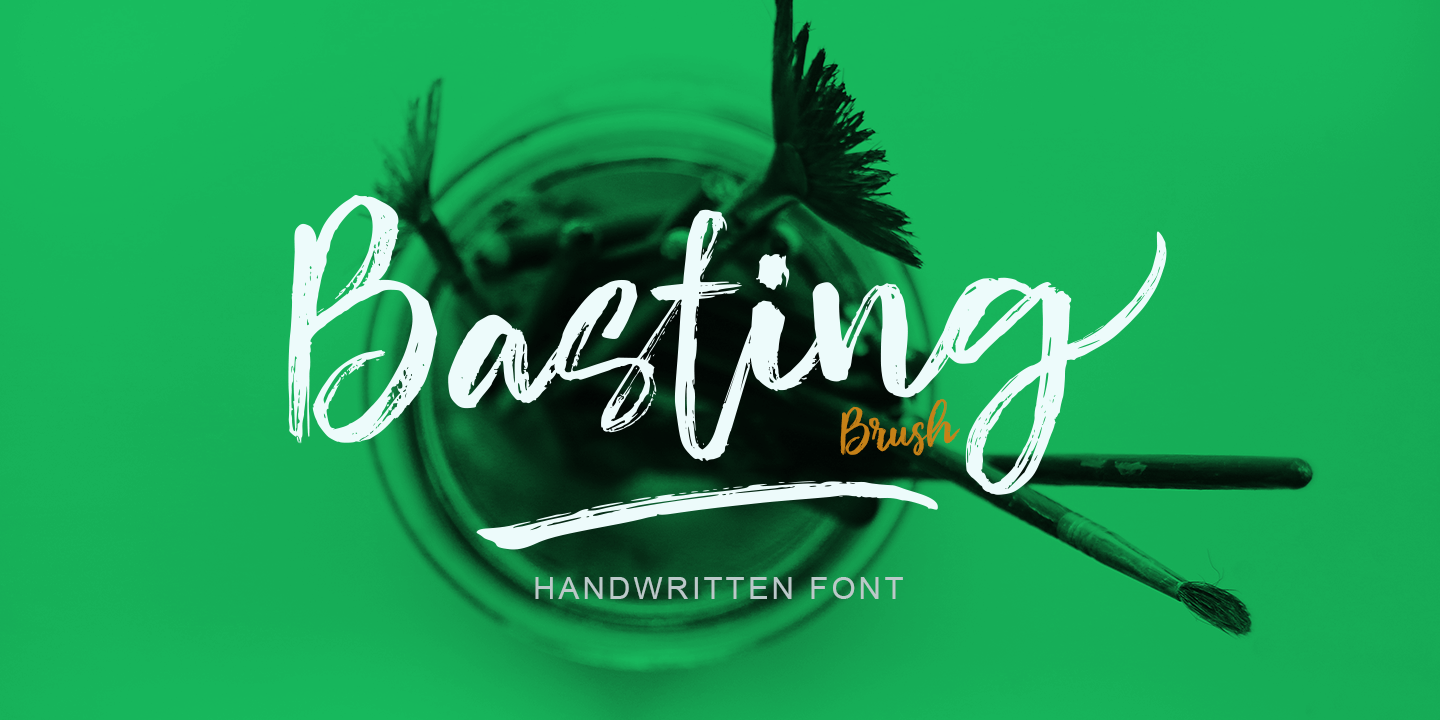
Basting Brush Font excels in culinary brand identities, restaurant menu designs, cooking blog headers, chef portfolio layouts, kitchen equipment packaging, food photography watermarks, culinary school materials, recipe book covers, barbecue restaurant signage, and gourmet cooking campaigns. Its brush-painted character makes it perfect for projects requiring authentic culinary artistry and handcrafted cooking appeal.
What makes Basting Brush Font exciting is its authentic recreation of brush strokes used in professional kitchens that captures the fluid motion and artistic flair of expert culinary techniques. The font features organic, sweeping letterforms with natural paint variations that evoke the passionate movements of chefs creating culinary masterpieces while maintaining excellent readability. Its brush-painted character transforms ordinary text into expressions of culinary artistry that celebrate the creative passion behind exceptional cooking.
The Basting Brush Font family includes Regular, Bold, Light, Sauce, Glaze, Marinade, and Chef variations. Each style maintains the font's culinary essence while offering different brush textures and cooking-inspired weights for creating authentic kitchen-related graphics. The comprehensive character set includes culinary symbols, cooking ornaments, kitchen decorations, and gastronomic glyphs essential for genuine food service and culinary arts typography projects.
Professional chefs and culinary businesses consistently choose Basting Brush Font Free Download for projects demanding authentic cooking typography solutions. The font's brush-painted character instantly establishes kitchen credibility while ensuring clear communication across food service marketing channels. Its versatility spans from subtle culinary touches to bold statements that celebrate the artistry and passion of professional cooking and gourmet food preparation.
Whether you're developing restaurant brand identities, creating culinary marketing materials, or designing food service communications, Basting Brush Font provides the perfect combination of kitchen authenticity and contemporary functionality. The font's artistically crafted letterforms ensure genuine culinary character while maintaining excellent performance across various food industry applications and gastronomic business communications.
The culinary heritage of Basting Brush Font makes it exceptional for creating appetizing connections with food lovers who appreciate cooking craftsmanship and culinary artistry. Its brush-painted precision and gastronomic appeal work seamlessly across traditional restaurant materials and modern digital food platforms. The font performs deliciously in both large-scale restaurant displays and intimate recipe communications.
Savor culinary creativity with Basting Brush Font and discover how authentic kitchen typography can enhance your food projects with genuine culinary appeal and artistic cooking flair. This remarkable typeface combines brush painting techniques with contemporary functionality, making it indispensable for culinary professionals celebrating the beautiful artistry and passionate craftsmanship of exceptional cooking and gourmet food preparation.